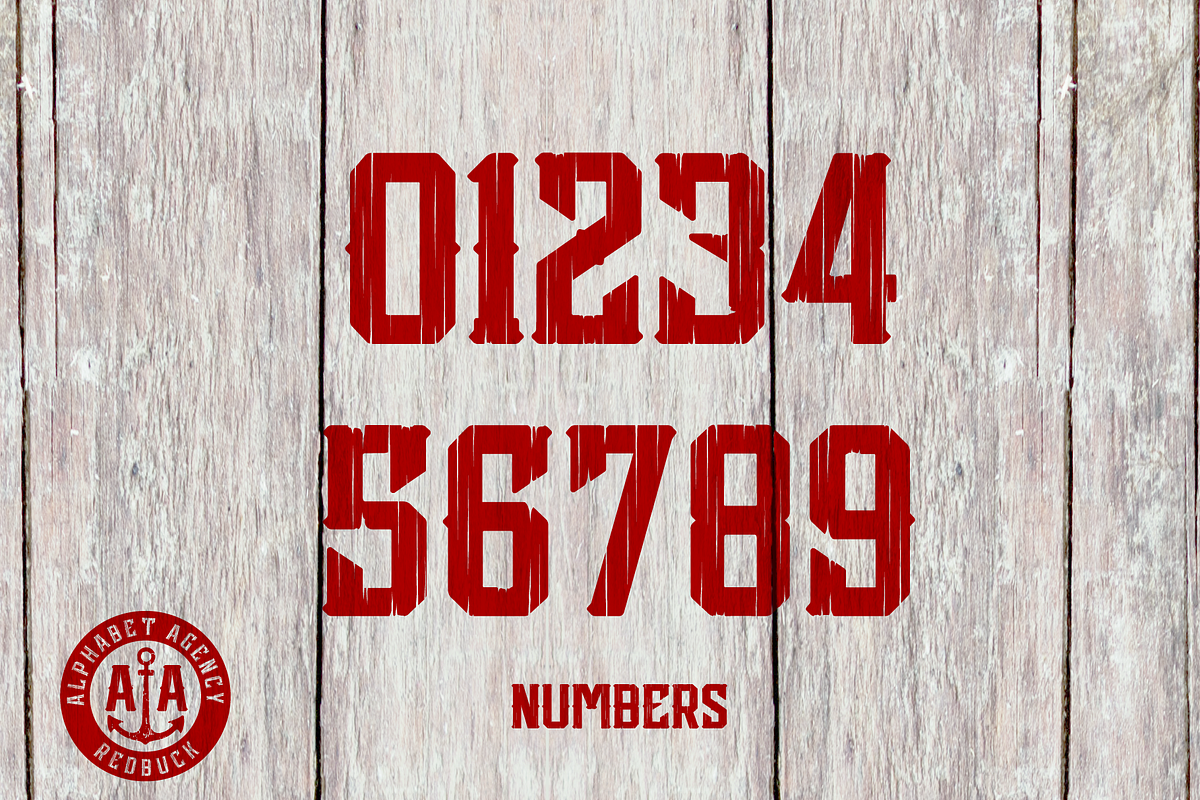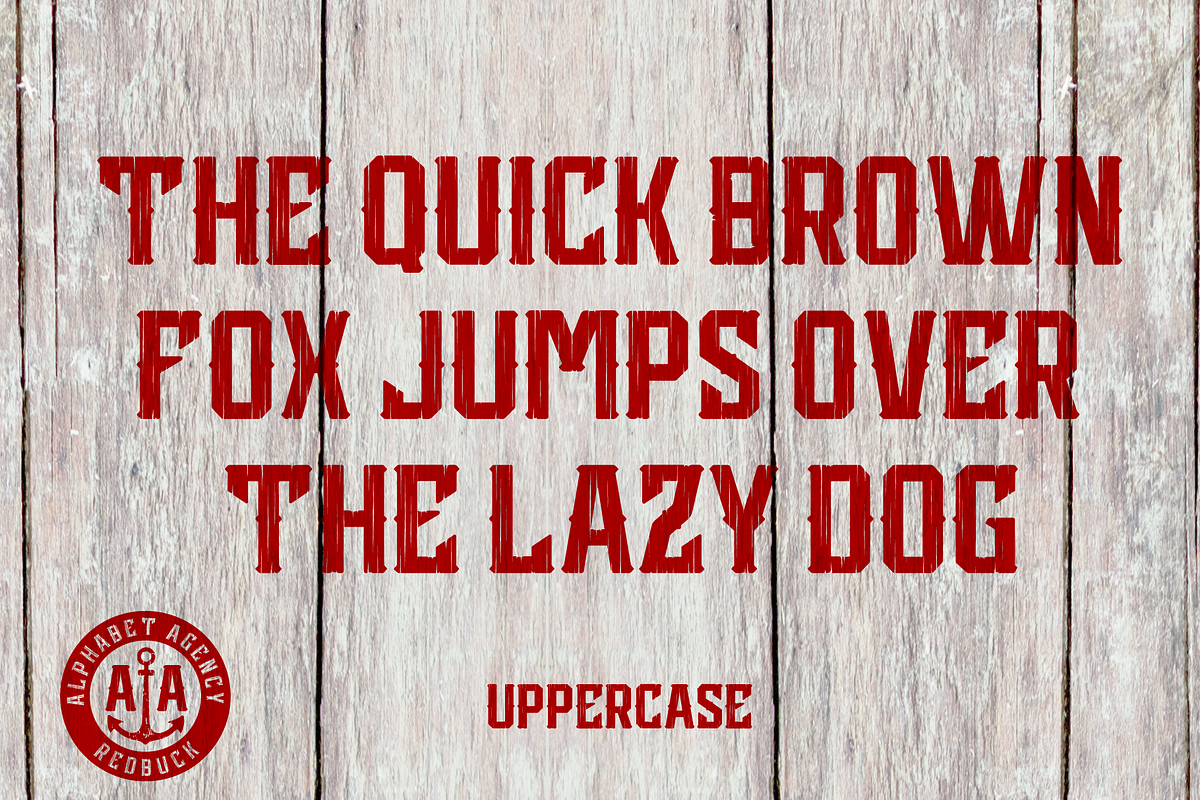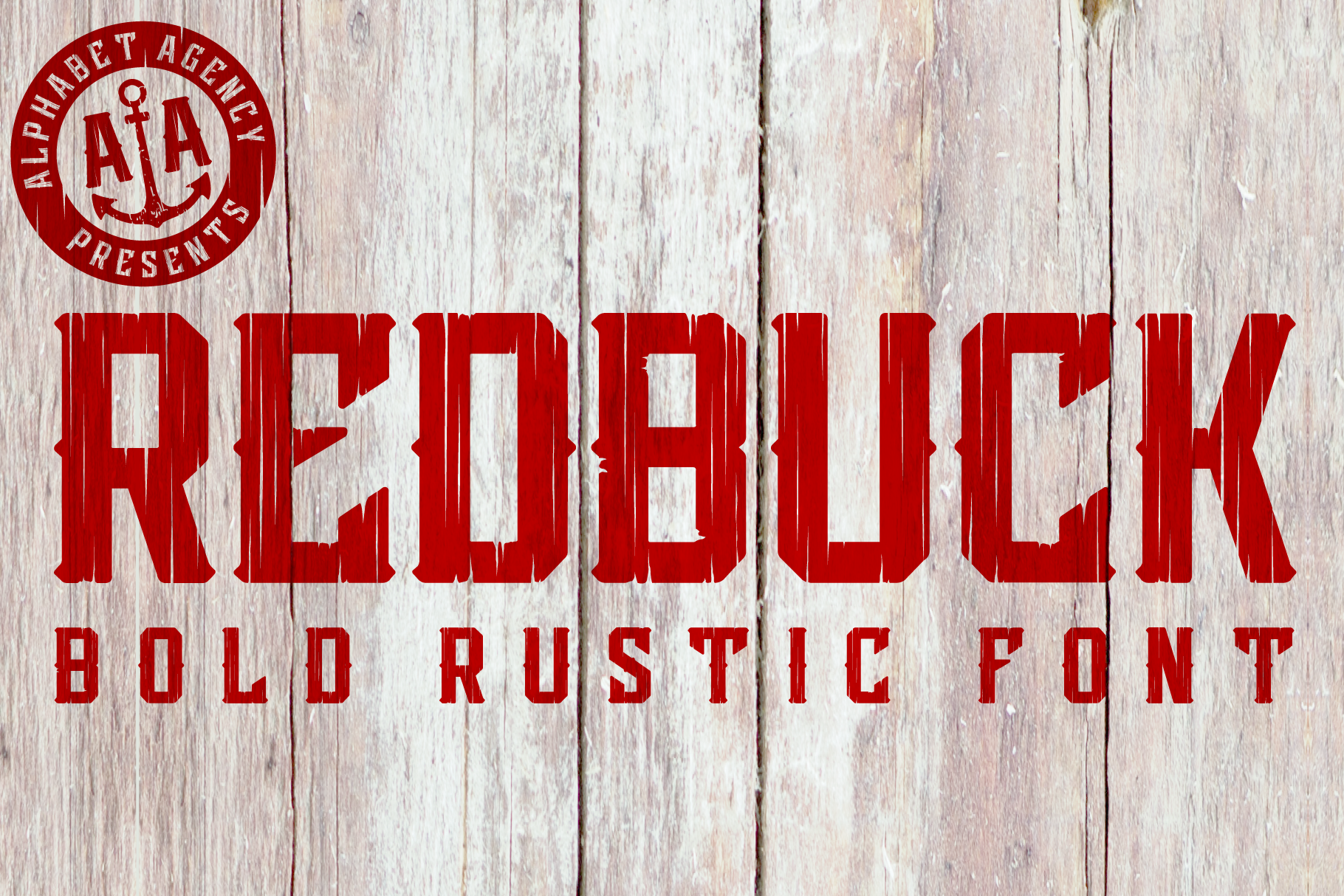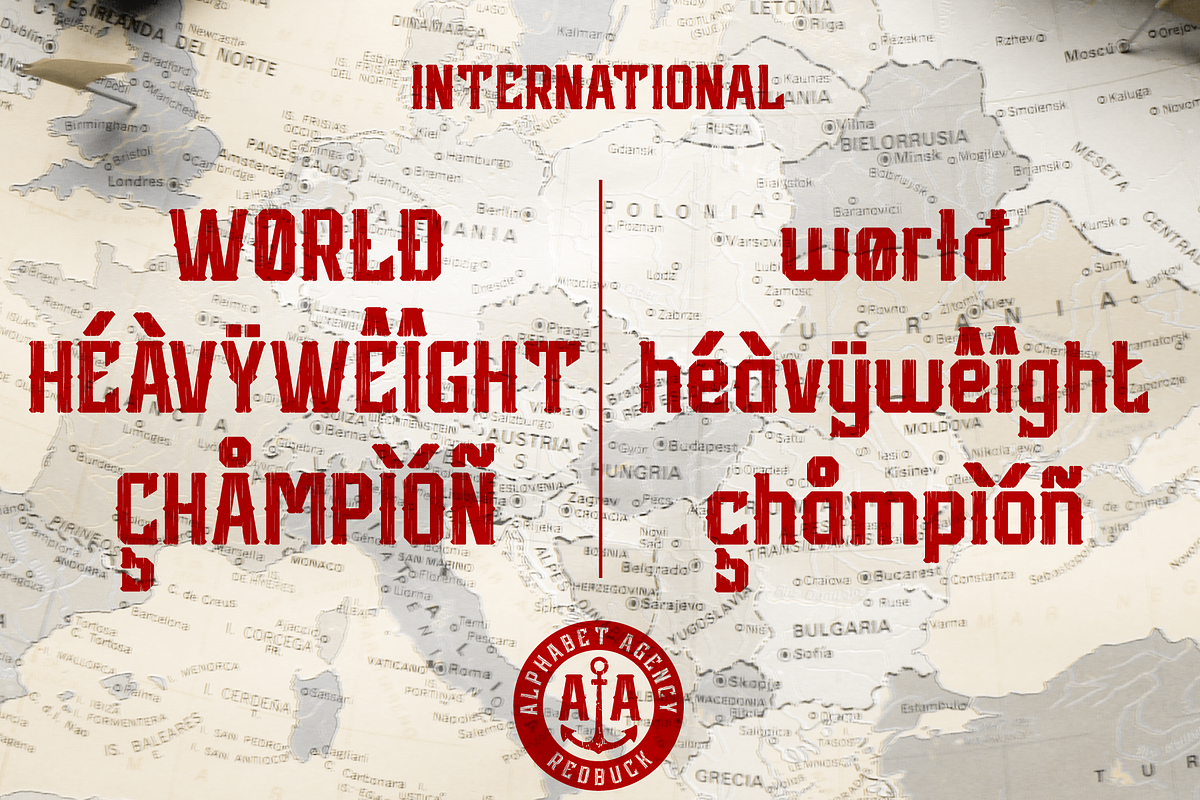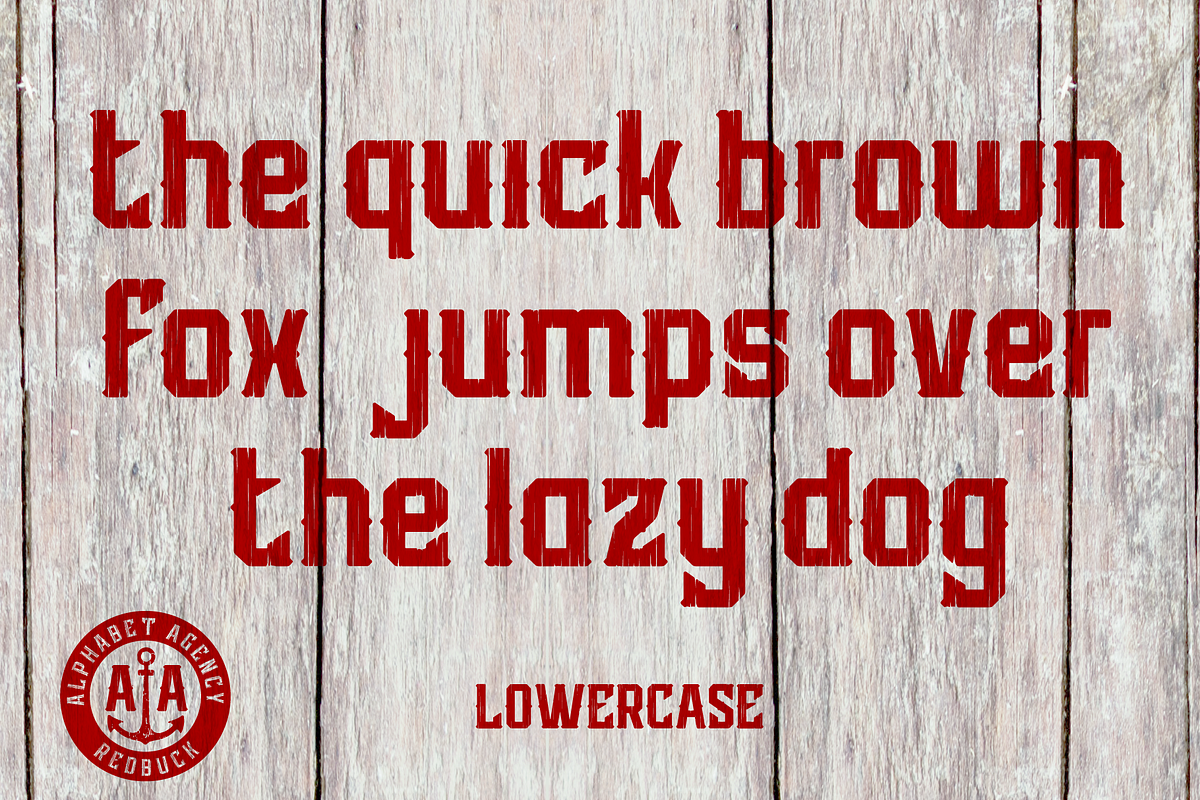
Redbuck Font
Redbuck is a bold rustic font design by Jonathan Swinn of the Alphabet Agency Font Foundry. Each character in the font includes the same vertical distressed effect imitating cracked paint on a wooden surface.. The font includes Latin characters; uppercase and lowercase letters, numbers, punctuations and a few alternative letters. The font includes kerned pairs. The downloadable zip file includes OpenType (OTF) and TrueType (TTF) formats as well as WOFF and WOFF2 versions of the font.